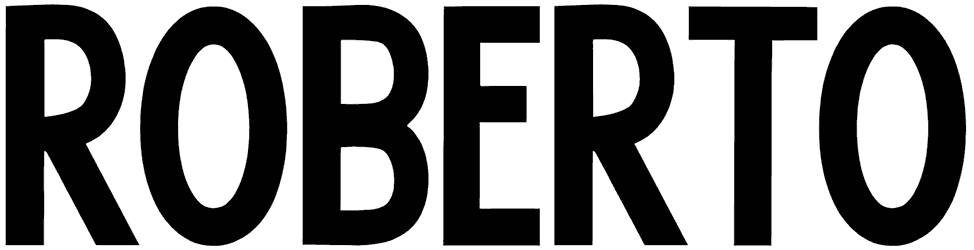
Roberto Font
Let us take this honor to introduce you Roberto, a magical sans serif font that all its characters are designed in four distinctive styles to help graphic artists to add a bit of variety to their creative ideas such as m…
Let us take this honor to introduce you Roberto, a magical sans serif font that all its characters are designed in four distinctive styles to help graphic artists to add a bit of variety to their creative ideas such as movie posters, business cards, flyers, e-books, and applications.
Although this typeface doesn’t support lowercase letters, carrying a sense of comfort, professionalism, and momentum would make up for it.